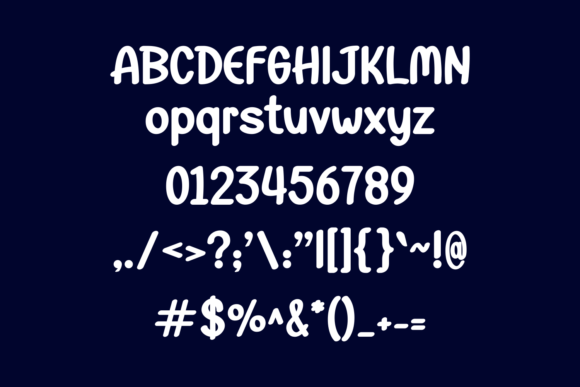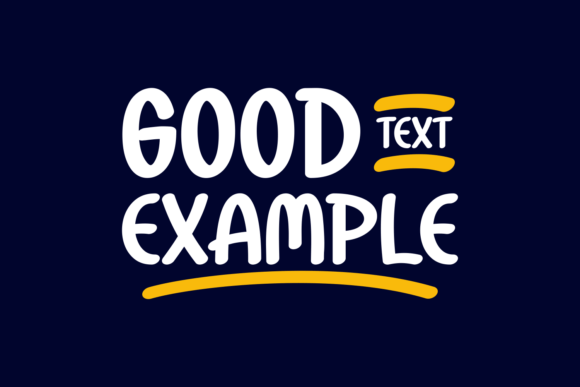
The Perfect Match for Your Next Creative Project
You know that feeling when you’re working on a design project and you just can’t seem to find the right font to bring it all together? You’ve tried a few options, but nothing seems to capture the essence of your vision. That’s where Bakujin Font comes in – a cool and modern sans serif font that’s sure to elevate your creations to the next level.
Bakujin Font is more than just a pretty face; it’s a versatile tool that can be used for a wide range of projects, from logos and branding to digital displays and printed materials. Its clean lines and modern aesthetic make it the perfect choice for designers looking to add a touch of sophistication to their work.
Bakujin Font Key Features
- Font Type: Bakujin Font is a Japanese font, specifically designed for display and body text.
- Character Set: Supports a wide range of Japanese characters, including Hiragana, Katakana, Kanji, and Latin letters.
- Unique Characteristics: Bakujin Font features a modern and sleek design, with clean lines and a minimalist aesthetic, making it suitable for a wide range of applications, from corporate branding to entertainment media.
Bakujin Font Review
Overall, I’m impressed with the Bakujin Font. Its unique aesthetic and bold, dynamic feel make it perfect for adding a touch of excitement to digital projects. ✨ The font’s high x-height gives it a friendly, approachable quality that’s great for headlines and titles. I also appreciate how versatile it is, suitable for a range of industries and applications.
- ✨ Unique aesthetic that sets it apart from more common fonts
- ✨ Bold, dynamic feel that’s perfect for grabbing attention
- ✨ Friendly, approachable quality due to high x-height
- ✨ Versatile, suitable for a range of industries and applications
- ⚠️ Limited language support, which may be a concern for projects that require multi-language support
- ⚠️ Not ideal for small text sizes, as it can become difficult to read
- ⚠️ May not be suitable for projects that require a more conservative or traditional look
Overall, I think the Bakujin Font is a great choice for designers who want to add some excitement and personality to their projects. While it has some limitations, its unique aesthetic and versatility make it a valuable addition to any design toolkit.
Tips for Getting the Most Out of Bakujin Font
To get the most out of the Bakujin font, use it sparingly and in combination with other fonts to create visual interest. Also, experiment with different font sizes, colors, and styles to find the perfect balance for your design.
The Bakujin font is perfect for:
- Branding and logo designs
- Photography captions and descriptions
Alternatives to Bakujin Font
1. Avenir
Avenir is a geometric sans-serif font designed by Adrian Frutiger in the 1980s. It’s ideal for use in modern and minimalist designs, as well as for headings and titles. Avenir is more versatile than Bakujin Font, with a wide range of weights and styles available, making it suitable for a variety of applications.
Comparison to Bakujin Font: Avenir has a more geometric and futuristic feel compared to Bakujin Font’s more rounded and playful aesthetic. Avenir is also more legible at smaller font sizes, making it a better choice for body text.
Montserrrat is a sans-serif font inspired by the street signs of Buenos Aires, designed by Julieta Ulanovsky in 2011. It’s a great choice for urban and modern designs, as well as for use in digital interfaces. Montserrat is more condensed than Bakujin Font, making it suitable for use in narrow spaces.